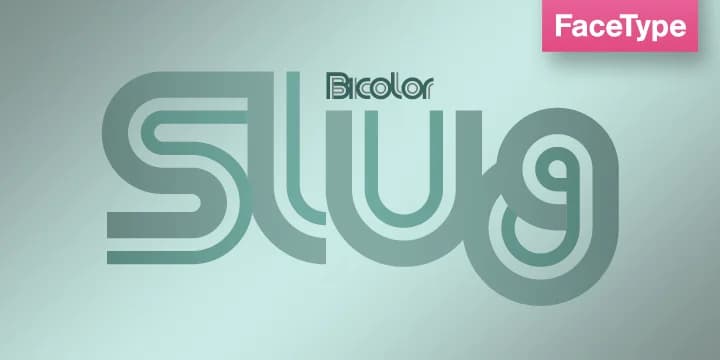
About Slug Font
Picture yourself designing a vintage poster or album cover that demands the authentic 1970s geometric punch. Slug, designed by FaceType, captures that clean, structured sensibility that made the era visually distinctive. The font comes in single and double-line weights, giving you straightforward options for most display applications. Beyond the standard versions, FaceType included a bicolor system with layerable A and B components, so you can stack contrasting colors to build dimensional type effects. This approach transforms simple letterforms into multi-tonal compositions.
The clean geometry stays legible even at large display sizes, which matters when you're setting bold headlines or building poster compositions. Slug works particularly well for retro branding systems, vinyl record covers, and packaging design that leans into vintage aesthetics. You'll find it equally useful on vintage merchandise labels, retro cafe signage, and art-deco-inspired greeting card suites. The geometric structure has the right weight and presence for both dominant headlines and supporting graphics, so it integrates easily into mixed-media projects. The bicolor layering approach gives you design flexibility beyond conventional typography. You get the tactile satisfaction of building something with actual depth and color interplay.
Slug Font is a decorative font that shines as a display or heading face. Pair it with a clean sans-serif or serif font for body text β the contrast creates a clear hierarchy while the two styles stay balanced and easy to read.
Slug Font
by FaceType